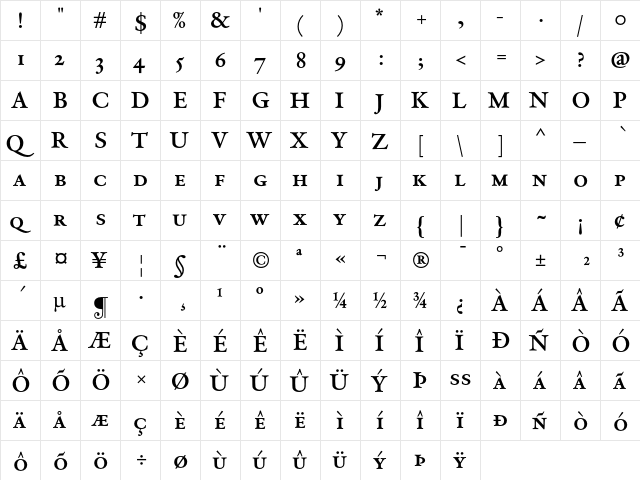
DTLVandenKeereDCaps Bold
Design Context for DTLVandenKeereDCaps Typeface
DTLVandenKeereDCaps offers clean, dependable letterforms without strong stylistic allegiance, making it a practical choice for designers who need flexibility. The heavy weight commands attention and anchors typographic hierarchies.